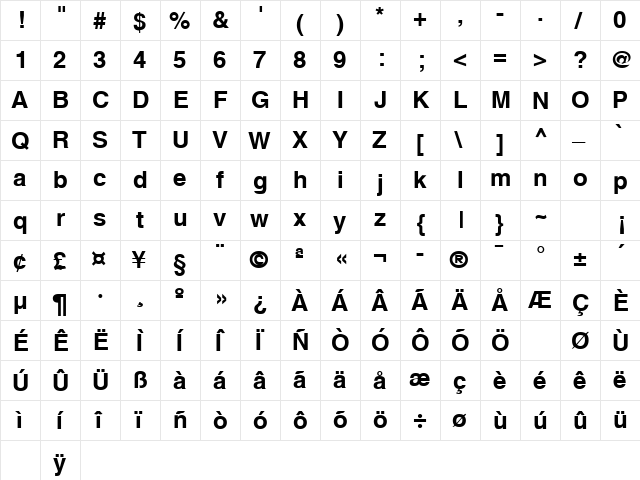
Aberden Bold
Design Context for Aberden Typeface
Aberden takes a measured approach to typography — its balanced proportions and neutral character make it a reliable workhorse for both digital and print work. The heavy weight commands attention and anchors typographic hierarchies.